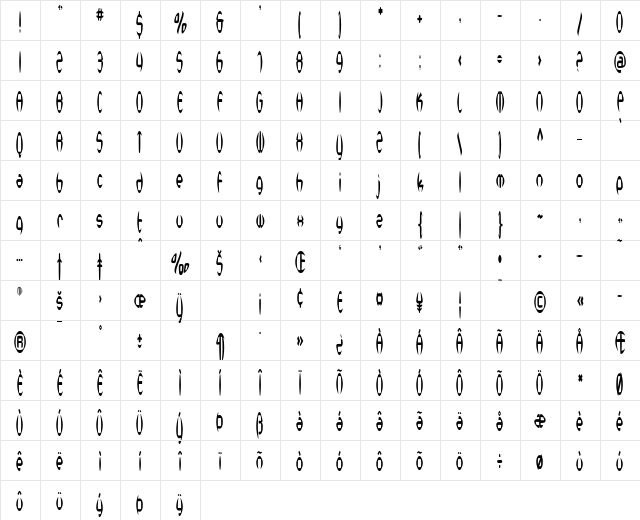
SF Synthonic Pop Condensed Regular Free Font
SF Synthonic Pop Condensed Regular
SF Synthonic Pop Condensed Family
Design Context for SF Synthonic Pop Condensed
SF Synthonic Pop Condensed is a composed and adaptable typeface that performs quietly and consistently across a wide range of design contexts. Its narrow stance lets it pack a punch even in space-constrained designs.